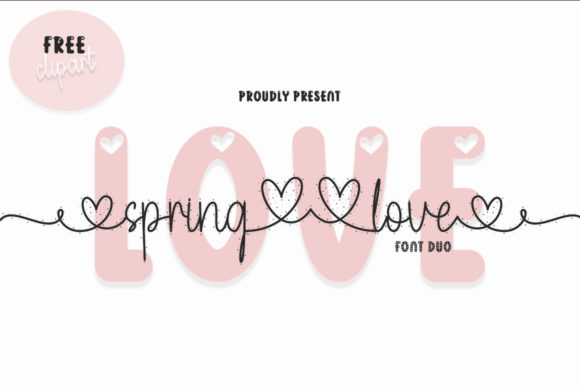
Welcome to the world of Spring Love Font, the script font family that captures the essence of romance and joy. Designed by the talented Fillo Graphic, this dynamic duo of fonts, Spring Love and Spring Love Alt, is ready to infuse your creative projects with a dash of charm and a sprinkle of elegance.
At the heart of Spring Love lies its exquisite cursive nature, reminiscent of handwritten letters penned with care and passion. The flowing strokes and graceful curves of each character evoke a sense of intimacy and warmth, inviting you to share your heartfelt messages with the world. This font is more than just a collection of letters; it's an expression of emotions, perfectly suited for creating heartfelt wedding invitations, personal branding, or adding a touch of charm to your social media posts.
Spring Love isn't just a pretty face; it's also incredibly versatile, lending its charm to a wide range of projects. Whether you're crafting delicate logos that exude sophistication, designing websites that radiate warmth, or creating social media graphics that capture attention, Spring Love is your trusty companion, ready to transform your creative visions into reality. With its effortless flow and captivating style, this font is bound to leave a lasting impression on your audience.
But wait, there's more! Spring Love comes fully equipped with PUA encoding, granting you easy access to a treasure trove of glyphs and swashes. Unleash your creativity and explore endless possibilities, adding intricate details and flourishes that elevate your designs to new heights. From elegant wedding monograms to eye-catching marketing materials, the versatility of Spring Love knows no bounds.
So, why settle for ordinary when you can embrace the extraordinary? Let Spring Love Font ignite your imagination and transform your creative endeavors into masterpieces. It's the perfect font for those who seek a touch of magic, a burst of romance, and an explosion of personality. Don't just take our word for it; download Spring Love today and experience the beauty and versatility that awaits you.